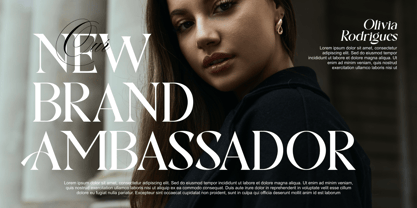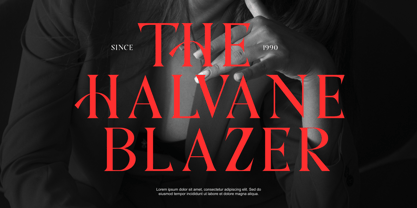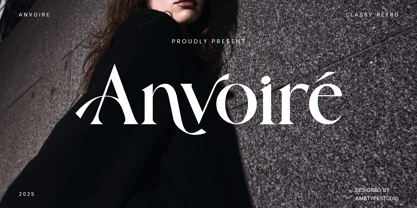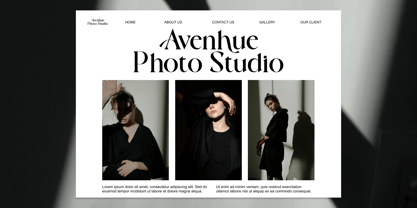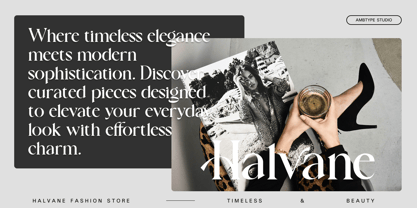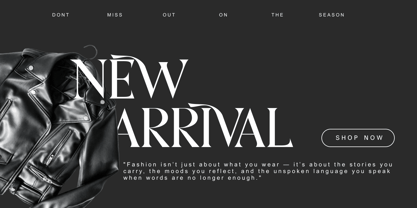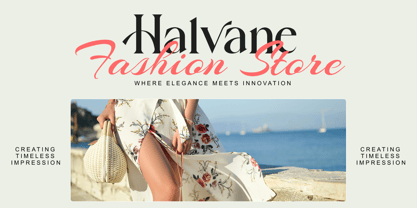
Anvoire
by Ambtype Studio
The Anvoire Font Family was designed by William Rizky Bahari and published by Ambtype Studio. Anvoire contains 2 styles and family package options. More about this family
Avnoire is a refined serif typeface that blends timeless elegance with modern sophistication. Designed with graceful curves, high contrast strokes, and delicate serifs, Avnoire captures the essence of editorial beauty and luxury branding. Each character is crafted with subtle details — from organic terminals to sophisticated ligatures — making it ideal for high-end fashion, lifestyle magazines, packaging, and upscale logos.
Avnoire offers both classic charm and contemporary flair, making it a versatile choice for designers seeking to elevate their visual storytelling with a touch of class.
Font Features:
• Elegant serif with high contrast
• Stylistic alternates
• Multilingual support
• Perfect for branding, editorial, packaging, and more